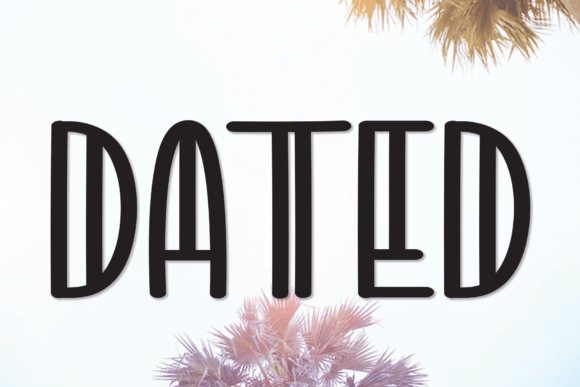
Introducing Dated Font, a display typeface that's anything but ordinary! With its captivating characters dancing along the baseline, this font is poised to infuse a dash of whimsy and fun into your creative projects. Say goodbye to the mundane and embrace the extraordinary with Dated Font.
Step into a world of boundless possibilities as you explore the diverse range of characters that Dated Font has to offer. From bold and playful to elegant and understated, each letterform exudes a unique personality, allowing you to craft designs that resonate with your audience. Whether you're a seasoned designer or just starting out, Dated Font is your passport to creating designs that stand out from the crowd.
Unleash your creativity and watch as your ideas come to life with Dated Font. Its versatility knows no bounds, adapting effortlessly to a myriad of design applications. From eye-catching logos and branding elements to captivating posters and social media graphics, Dated Font is the ultimate tool for designers seeking to make a lasting impression.
Don't settle for ordinary fonts that blend into the background. Choose Dated Font and embark on a design journey that's filled with joy, personality, and endless possibilities. Let your imagination soar as you create designs that captivate and inspire, leaving an unforgettable mark on your audience.